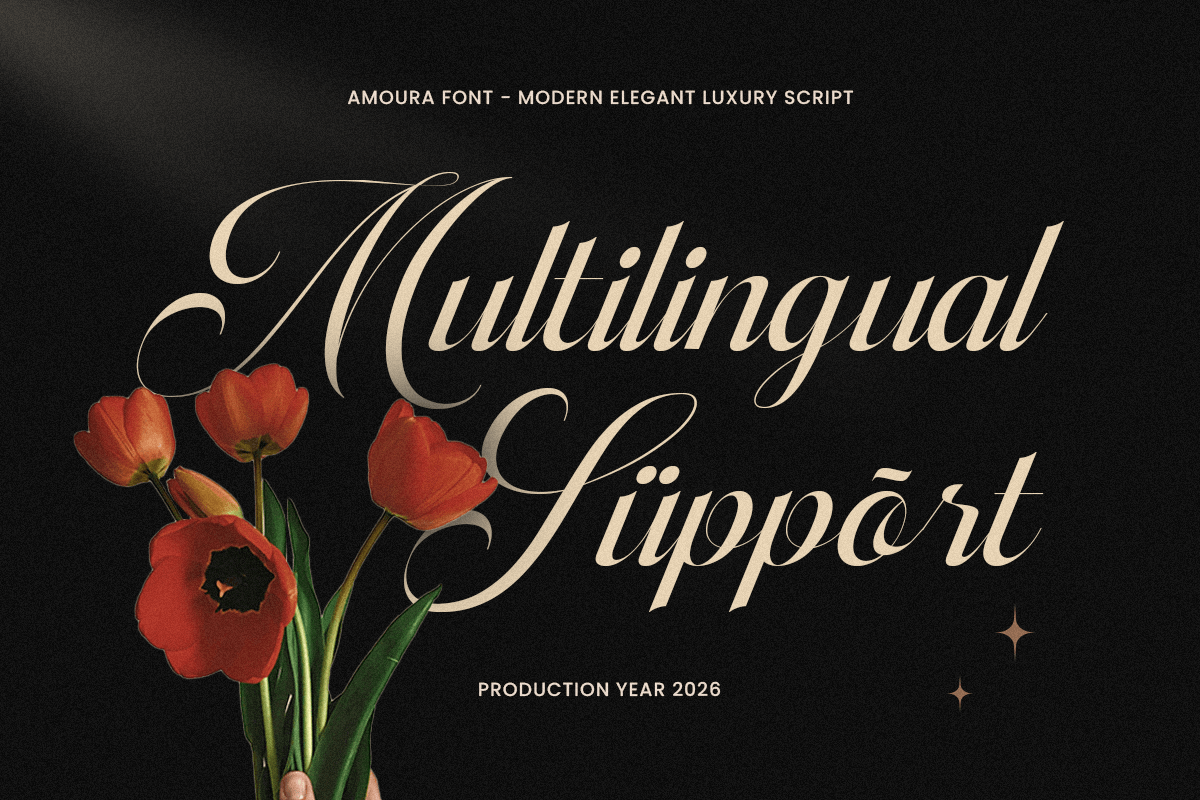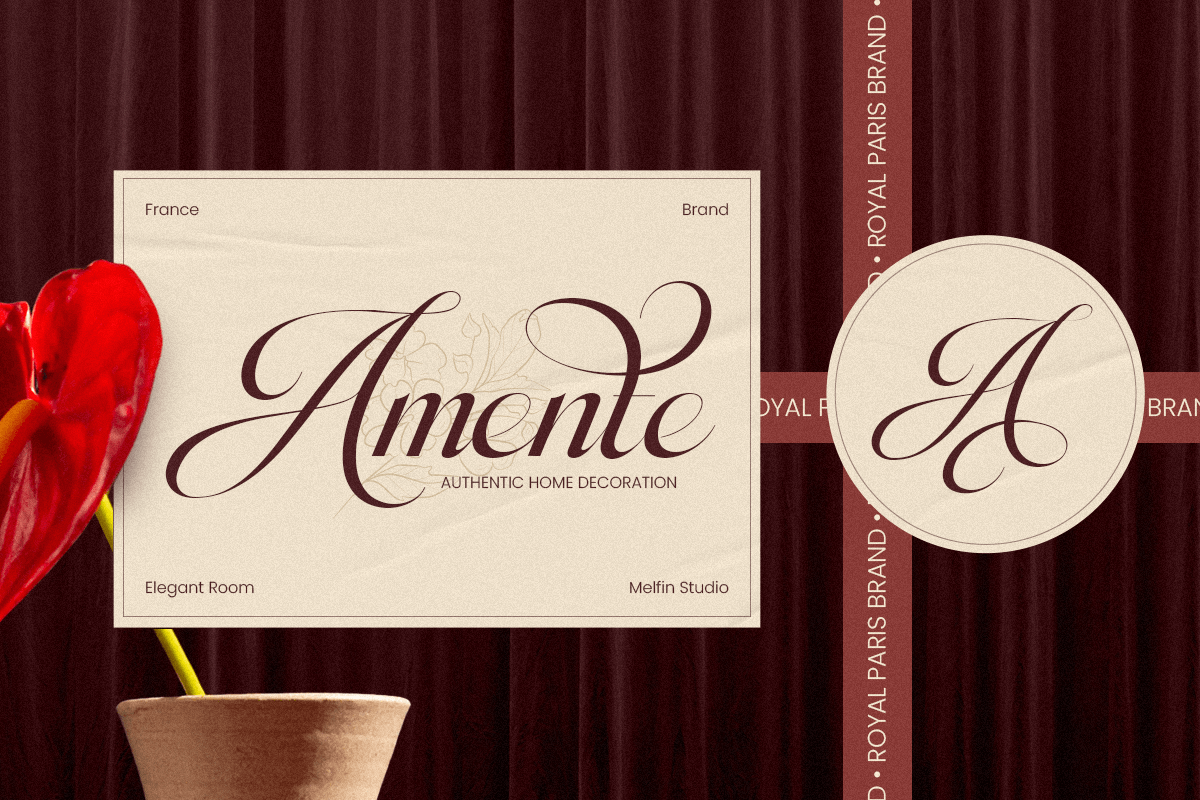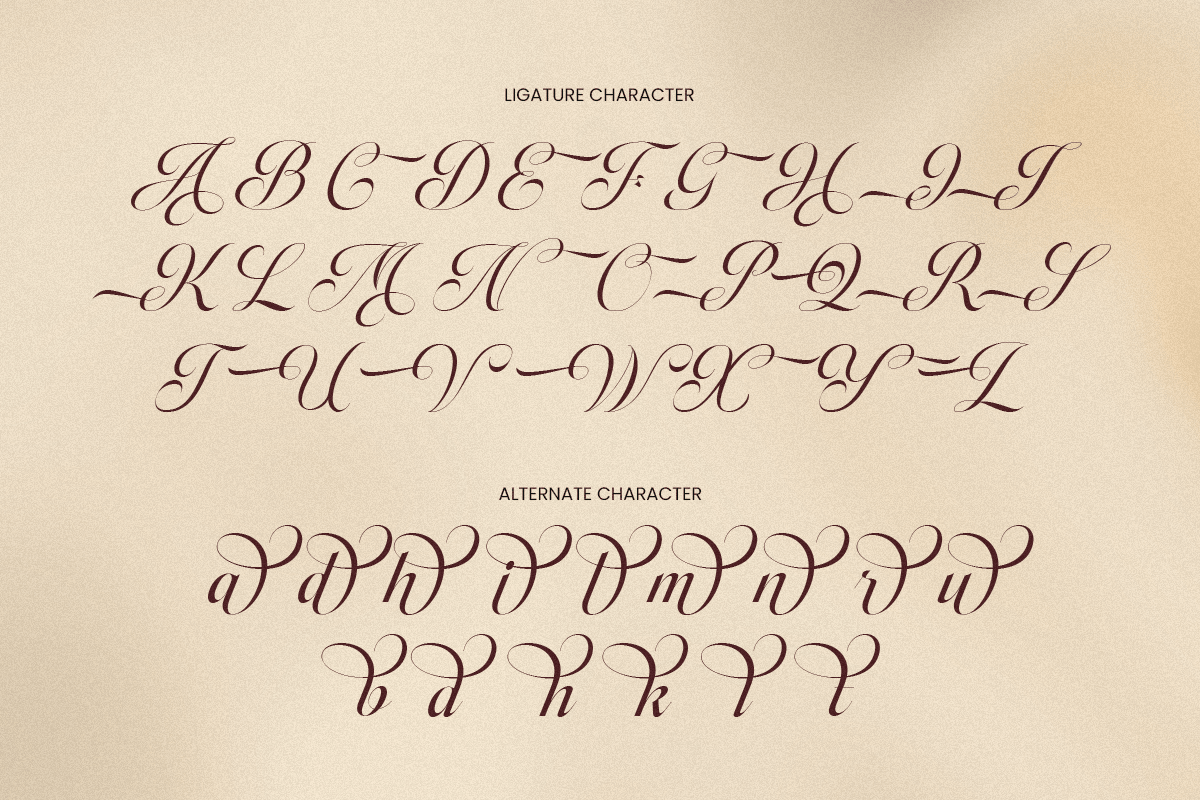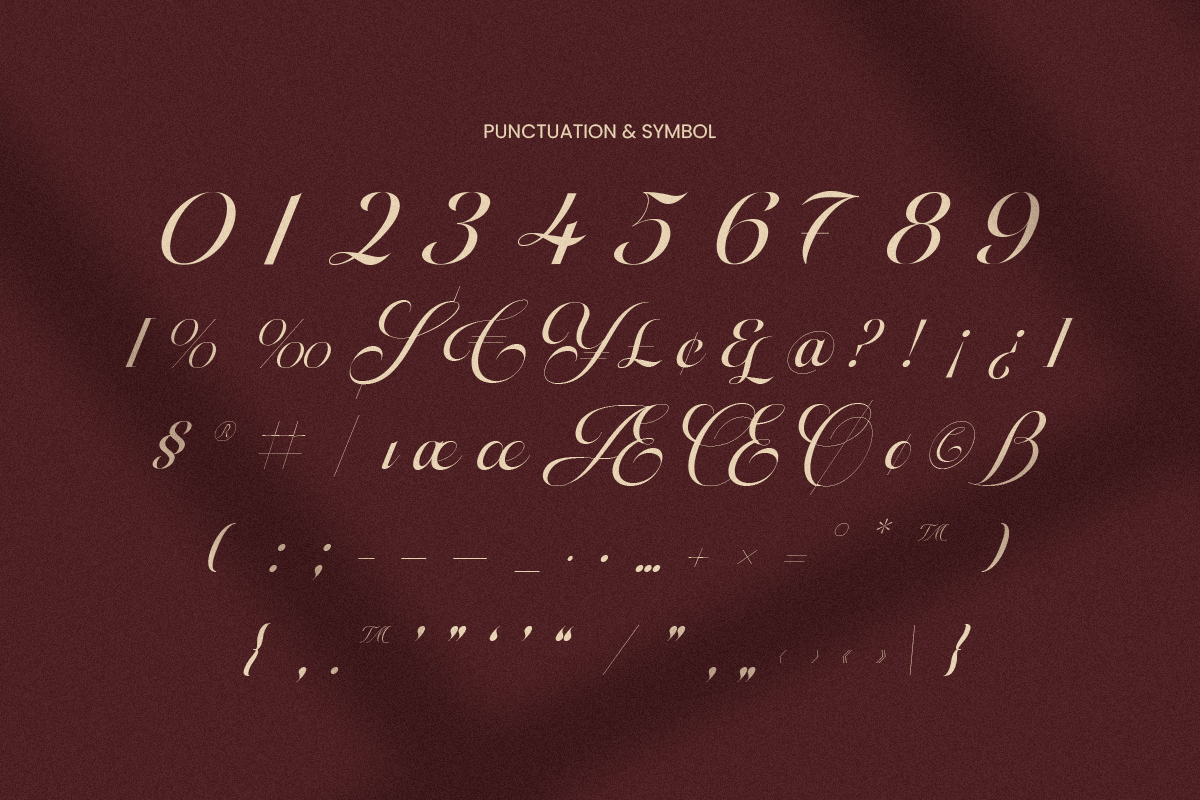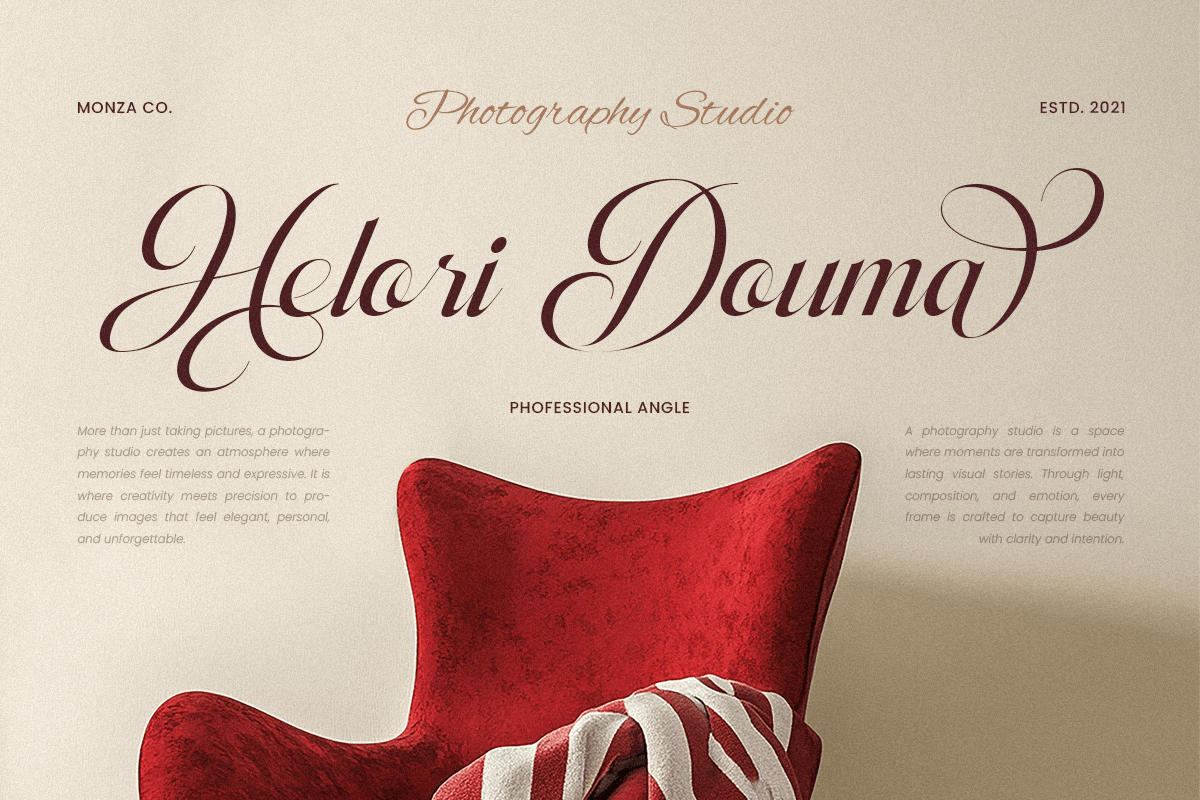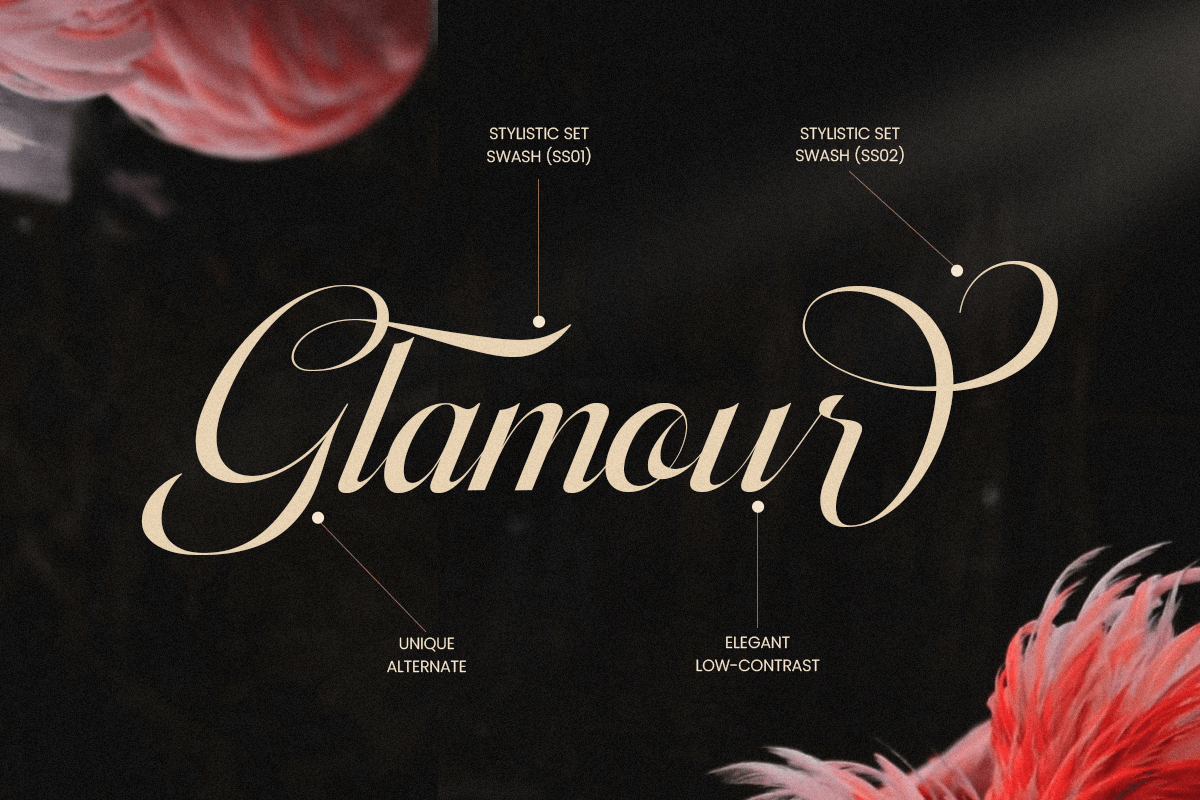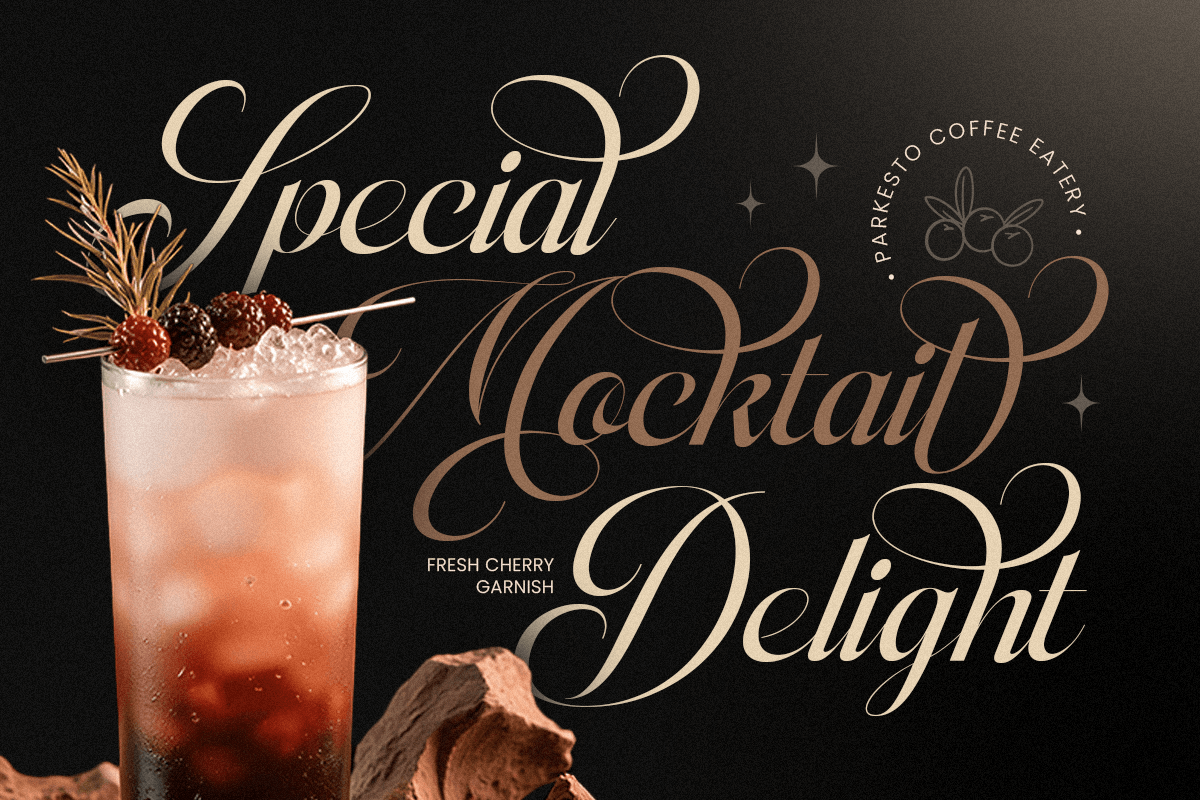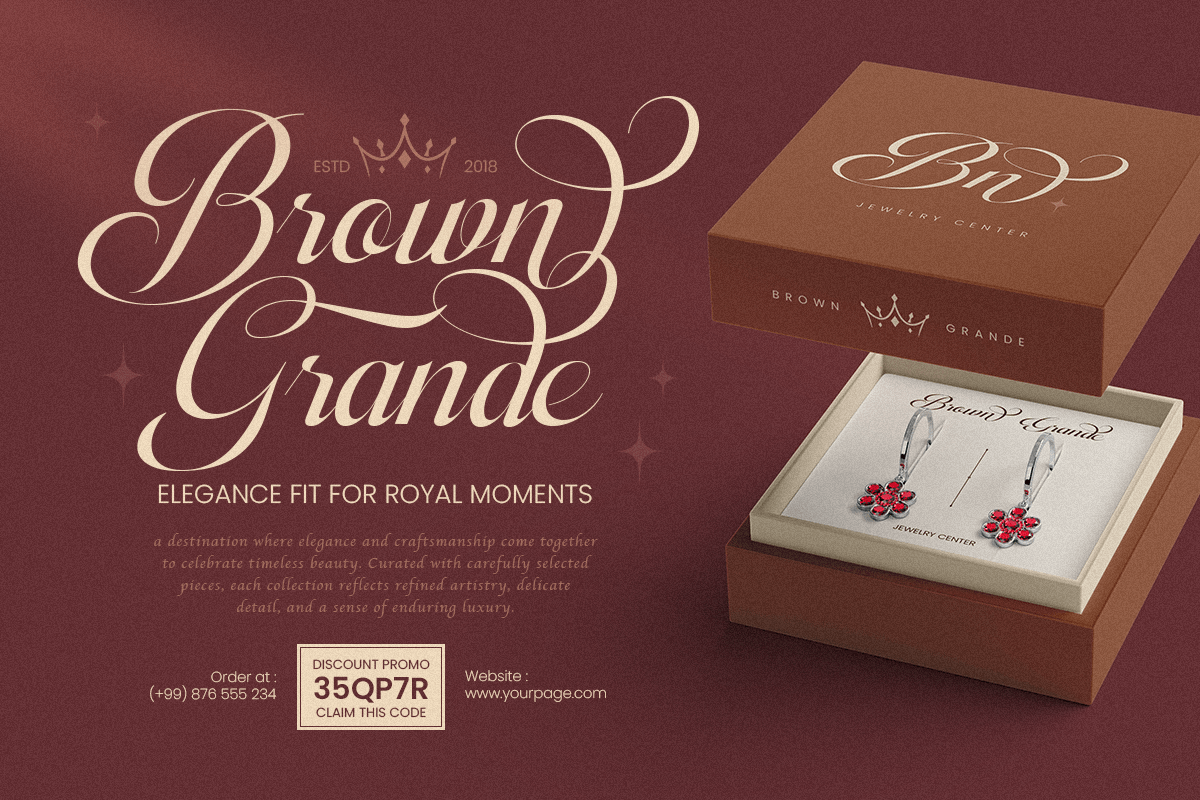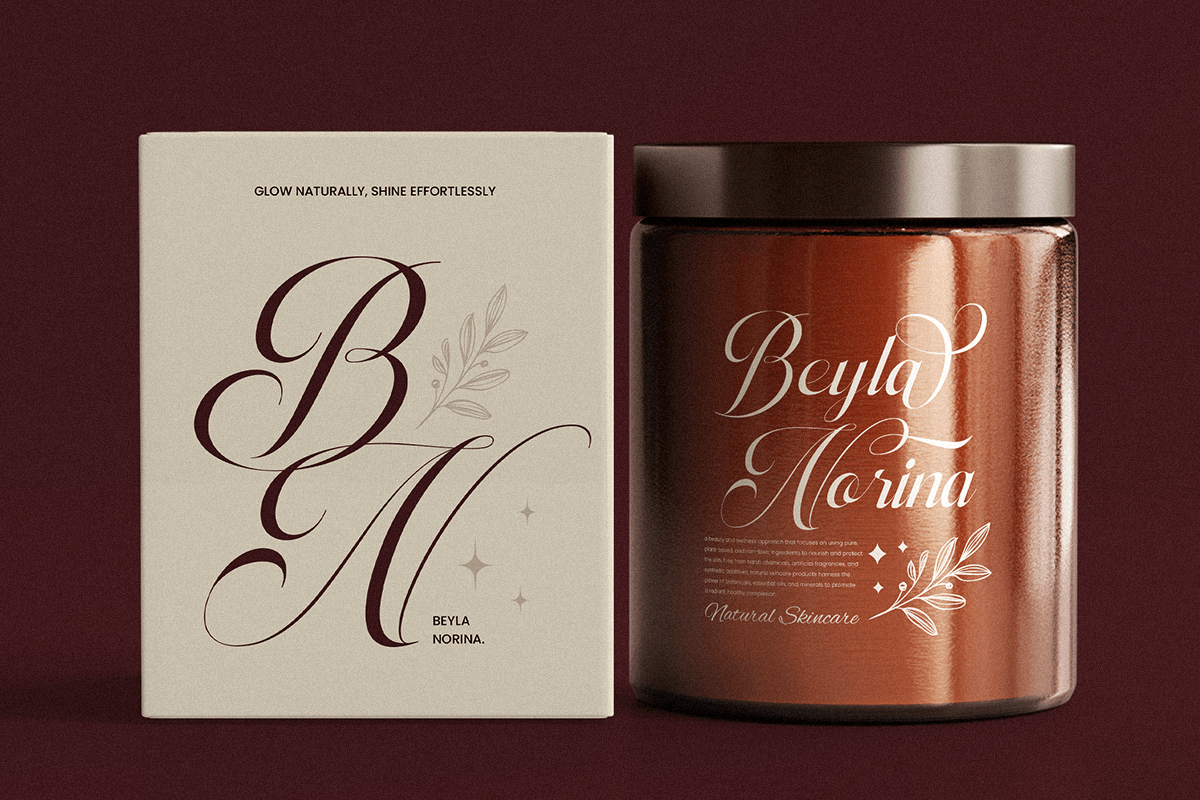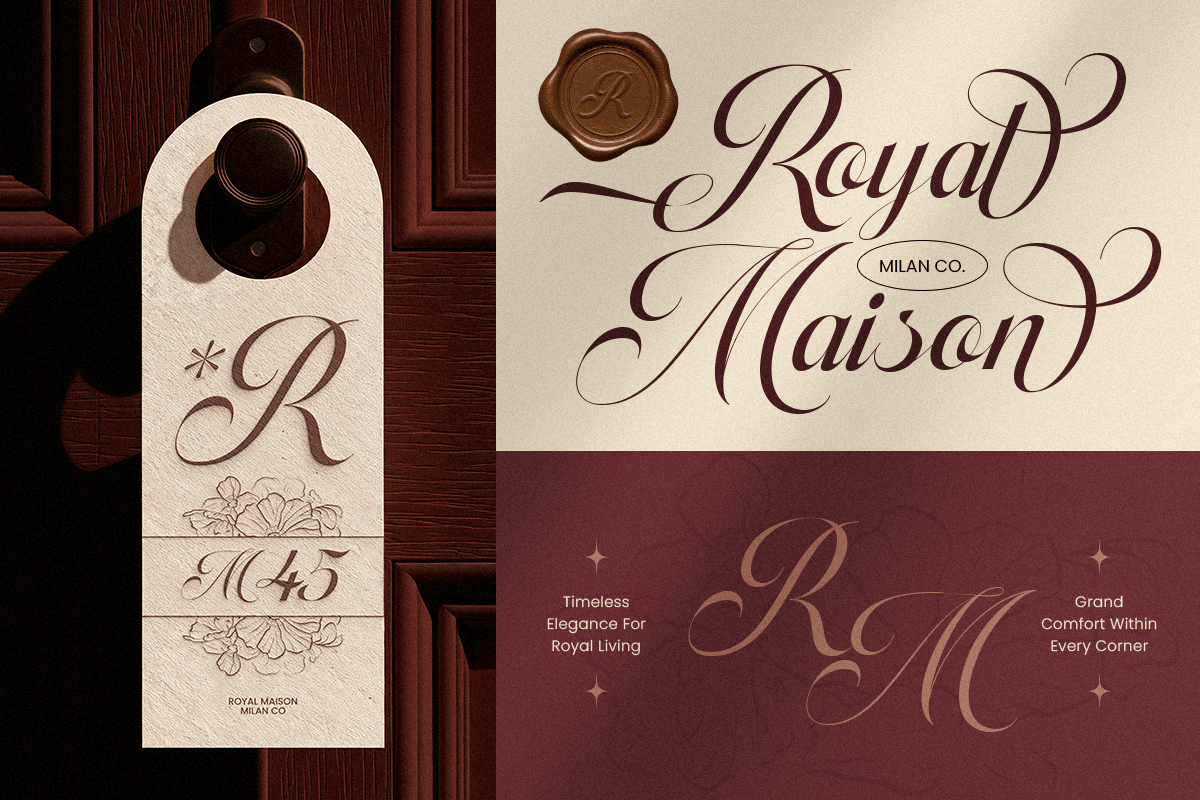
Amoura - Elegant Luxury Script Font
Amoura is a modern elegant luxury script font crafted to bring graceful movement and refined sophistication to your typography. With flowing strokes, polished curves, and a premium handwritten rhythm, this typeface creates a luxurious visual tone that feels stylish, feminine, and instantly memorable.
Built for high-end branding and signature-style design, Amoura works beautifully across logos, wordmarks, website headers, packaging, labels, invitations, editorial layouts, social media graphics, presentations, and upscale marketing visuals. Its elegant script structure adds a personal, high-fashion touch while maintaining clarity across both digital and print applications.
Whether you’re building a beauty brand, creating boutique packaging, designing romantic stationery, or crafting premium promotional materials, Amoura provides a luxurious script foundation that makes your typography feel expressive, polished, and unforgettable.
Inspiration Behind Amoura
Amoura is inspired by luxury signature lettering and modern feminine branding—where graceful curves, fluid rhythm, and elegant detail shape premium visual identity. The design focuses on refined handwritten movement and upscale balance to support sophisticated branding with a soft, stylish, and timeless presence.
Amoura Font Features:
- Modern luxury script letterforms with elegant handwritten character
- Perfect for premium branding, logos, and signature-style typography
- Graceful flowing strokes for refined visual identity
- Uppercase, lowercase, numerals, and punctuation included
- OpenType features for polished professional typesetting
- Luxury logos, wordmarks, and premium brand identity systems
- Fashion, beauty, skincare, fragrance, and boutique branding
- Invitations, stationery, labels, and romantic promotional design
- Editorial layouts, website headers, and elegant headline styling
- Social media campaigns, presentations, and upscale marketing assets
Add graceful luxury to your branding with Amoura—a modern elegant script font made for premium signature design. ✨